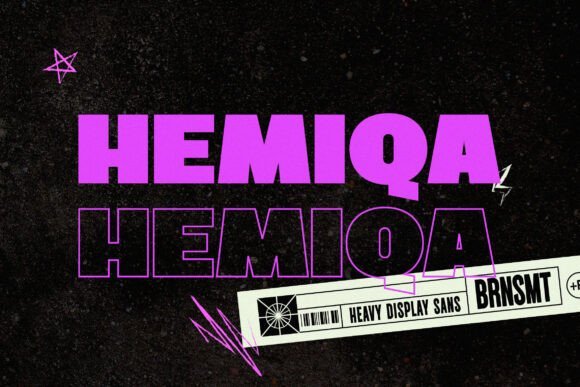
The Perfect Font for Making a Lasting Impression
Have you ever stared at a blank canvas, waiting for inspiration to strike? For designers, those moments can be both thrilling and intimidating. But what if you had the perfect tool to elevate your creations and leave a lasting impact? Enter Hemiqa Font, a modern and sleek sans serif typeface designed to make a statement.
As a versatile font, Hemiqa is perfect for display headings, logos, branding, and even product packaging. Its clean lines and smooth curves add an extra touch of sophistication to any project, making it a valuable asset for designers. Whether you’re working on a magazine spread, an invitation, or a product label, Hemiqa Font is sure to help you create something truly special.
Hemiqa Font Key Features
- Font Family: Hemiqa Font is a sans-serif font family with a unique blend of modern and traditional elements.
- Unique Characteristics: Hemiqa Font features a distinctive x-height and a unique letterform design that sets it apart from other sans-serif fonts.
Hemiqa Font Review
Overall, I’d say the Hemiqa Font is a decent addition to any font library. It’s got a unique and modern look that can work well for certain projects. ✨
- It’s highly legible, even at smaller font sizes. The clean lines and balanced proportions make it easy on the eyes.
- The font is highly customizable, with a wide range of weights and styles available. This makes it easy to adapt to different design needs.
- The Hemiqa Font is also relatively lightweight, which is great for web design or projects where file size is a concern.
However, there are some limitations to consider. ⚠️
- The font may not be suitable for projects that require a more traditional or serif look. It’s definitely a modern, sans-serif font.
- The Hemiqa Font can feel a bit cold or sterile in certain contexts. It’s not a font that’s going to evoke a lot of emotion or personality.
- The font is not as widely supported as some other fonts, which can cause issues in certain browsers or operating systems.
Overall, I’d give the Hemiqa Font 3.5 out of 5 stars. It’s a solid choice for modern design projects, but it may not be the best fit for every project.
Tips for Getting the Most Out of Hemiqa Font
Use Hemiqa font for creative projects, such as:
- Typography-based art
- Brand identities
- Wedding invitations
Experiment with different font sizes, colors, and combinations to achieve unique and visually appealing designs.